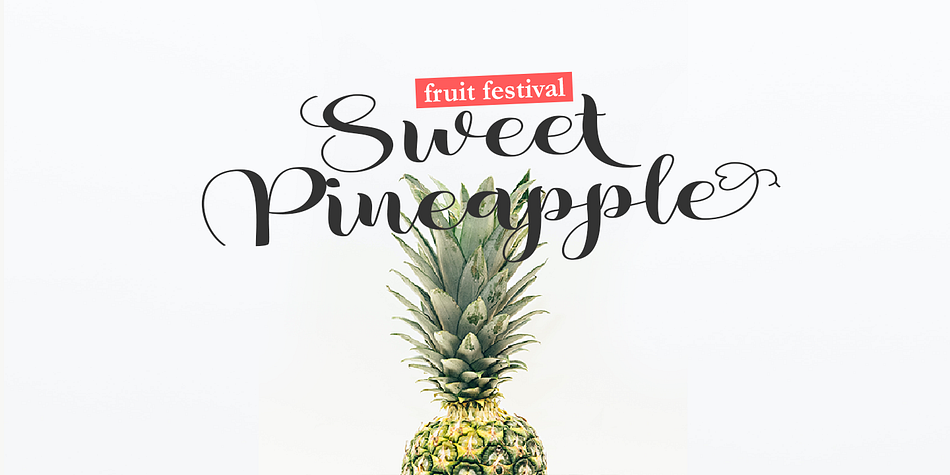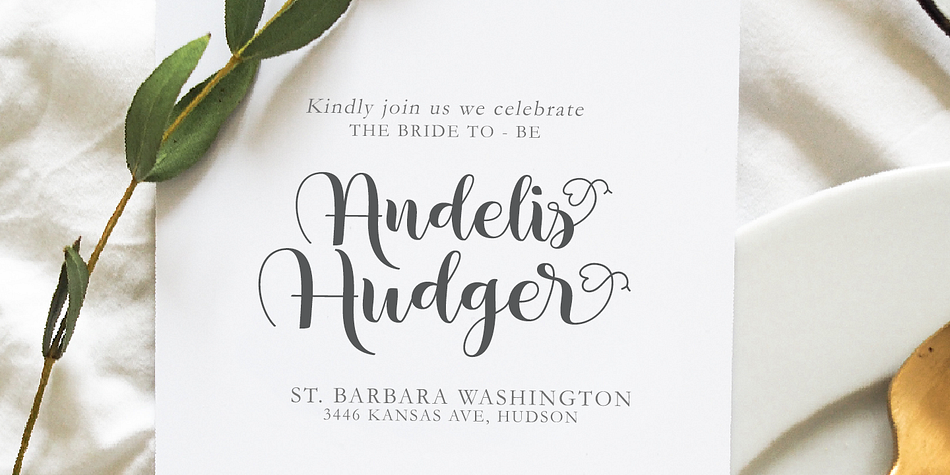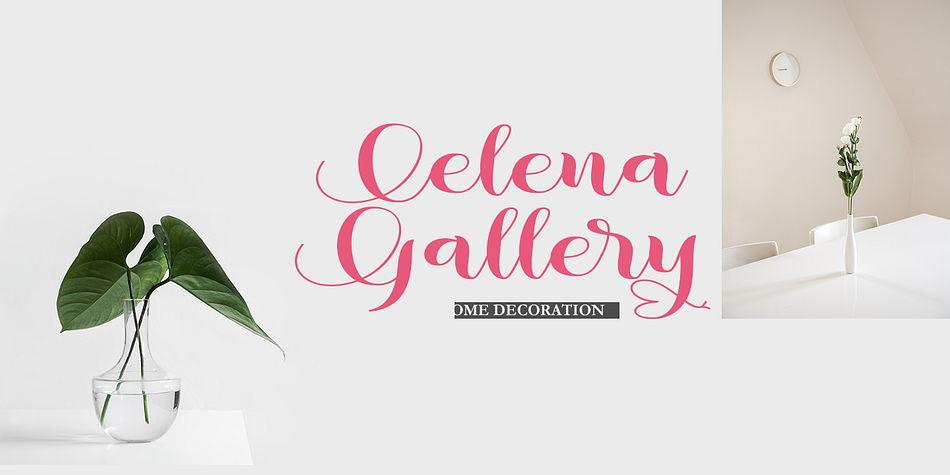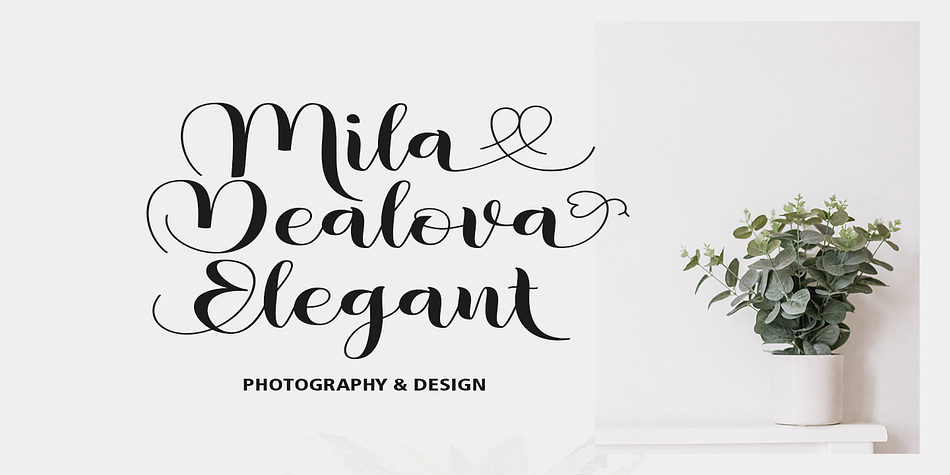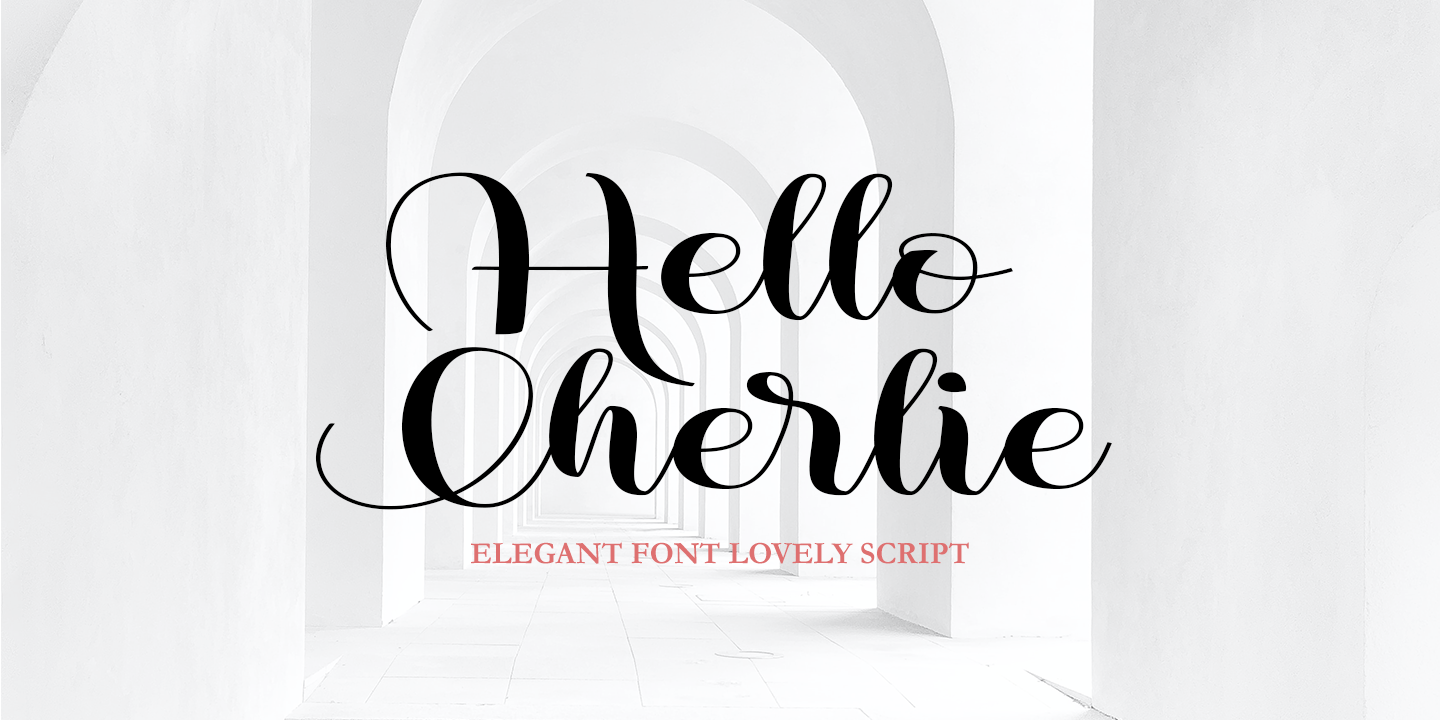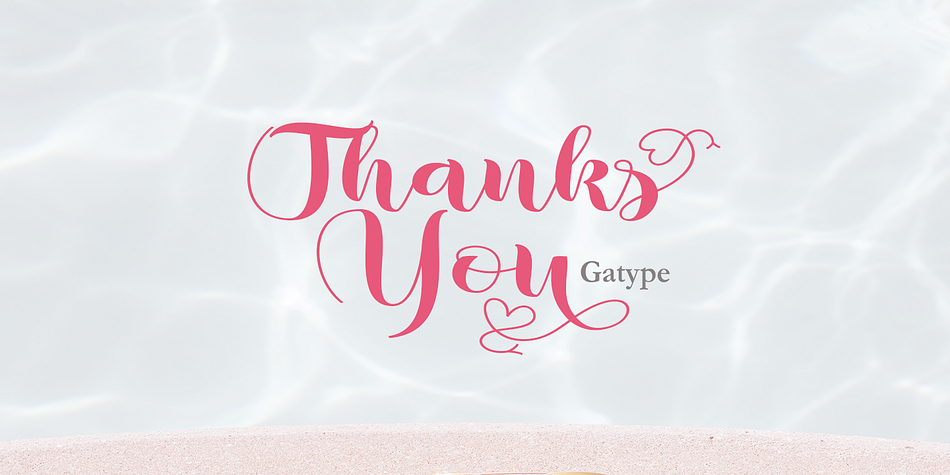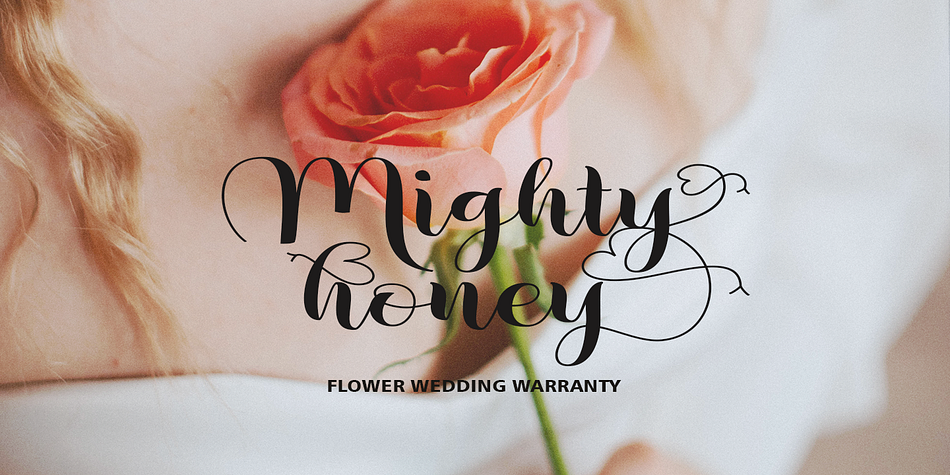
Hello Cherlie
Hello Cherlie is a modern calligraphy font family published by Gatype.
Hello Cherlie is a modern brush script font. The letters have soft terminals and a bit of bounce. Hello Cherlie has two sets of uppercase letters, one simpler and the other more flashy.
It also has three lowercase matching start and end match types and multiple options for ascenders and descenders.
So if you’re looking for a mellow, friendly, and modern script with lots of options and versatility, check out Hello Cherlie.